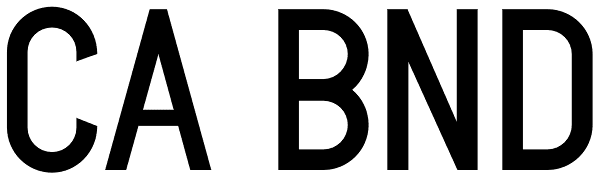
CA BND
Cape Arconas legendary obsession to create a DIN-like font substitution brings us to CA BND, named after the German Intelligence Agency. Thomas Schostok created the font for the new CI of the Intelligence Agency, but the presentation wasn't...